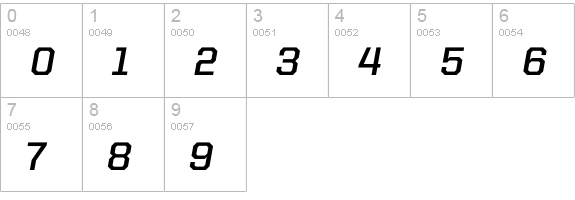
United Italic Reg Bold Font Details
United Italic Reg Bold is a strong, high-contrast, italic variant in the United typeface family \xE2\x80\x94 well suited to headlines, attention-grabbing titles, and strong calls-to-action.
Introducing United Italic Reg Bold, a versatile and captivating font that effortlessly blends elegance with modernity. This unique typeface exudes confidence and sophistication, making it perfect for a wide range of design projects. With its bold and striking letterforms, United Italic Reg Bold commands attention and adds a powerful touch to any text. Whether used for headlines, titles, logos, or branding materials, this font is sure to make a lasting impression. United Italic Reg Bold not only offers a visually stunning aesthetic but also provides exceptional legibility. Its carefully crafted design ensures that every character is easily recognizable, even at smaller sizes. This makes it ideal for both print and digital applications, from magazines and brochures to websites and social media graphics. One of the most remarkable aspects of United Italic Reg Bold is that it is freely available to download at FontsMarket.com. This means that designers and enthusiasts alike can access this incredible font without any cost. Its accessibility and flexibility make it a valuable addition to any typographic toolkit. Whether you're a professional designer looking to elevate your projects or an individual seeking to add a touch of boldness to personal creations, United Italic Reg Bold is the perfect choice. With its combination of elegance, versatility, and the freedom to download it for free at FontsMarket.com, this font is sure to inspire creativity and bring your designs to life.